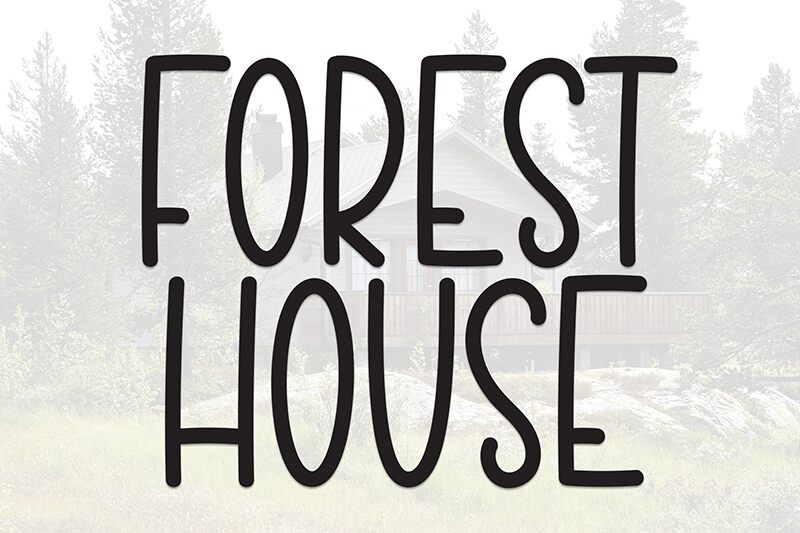
Forest House
Forest House font by Andi Moz is a free handwritten display font inspired by chalk writing style. With characters condensed in width, the text flow appears effortlessly fluid. Smooth line diagonals alternate with taller perpendiculars resembling a casual, friendly ambience not mistaken in books focused on growing fine handwriting.
Forest House can be used mostly for display purposes since it’s ideal for short and medium-length text exposure. Logo designs are the top of mind suggestion followed by headlines, branding projects, package design, invitations or flyers. Add to these business cards, labels on jars or cans and wooden board signs for boutiques or restaurants.